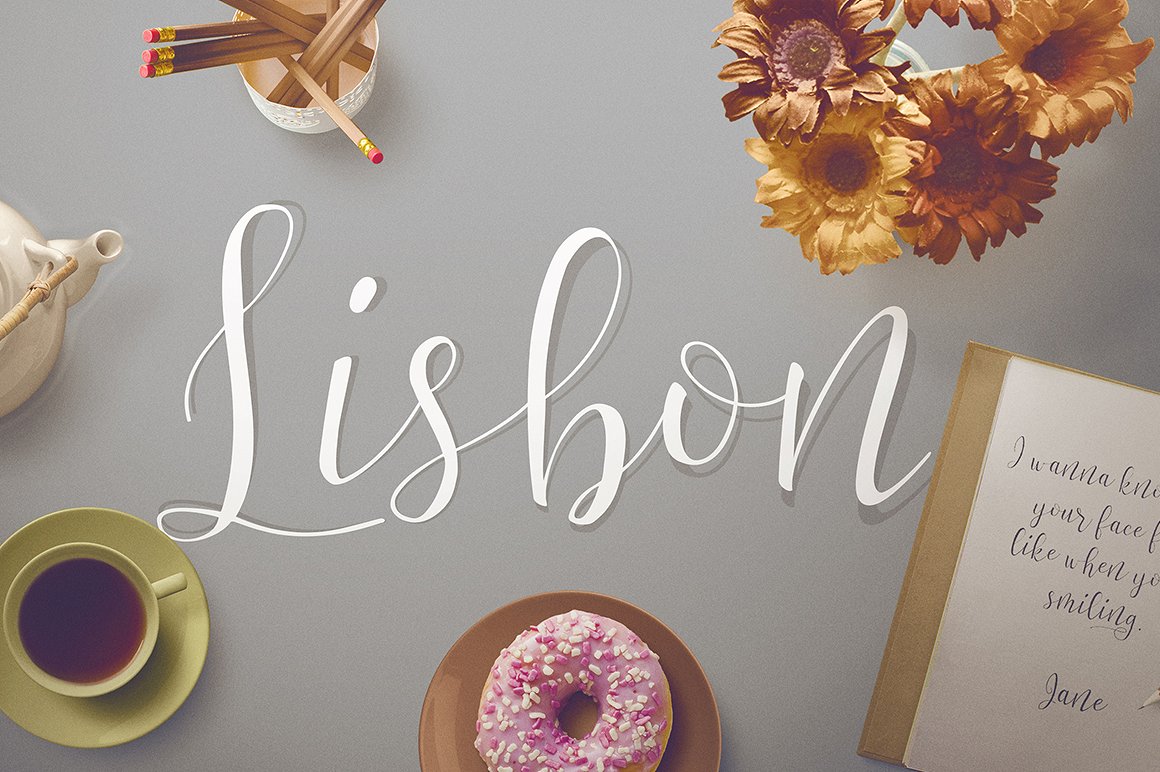
Lisbon Calligraphy Font
Lisbon Script is handwritten stylish copperplate calligraphy fonts, combines from copperplate to contemporary typeface with a dancing baseline, classic and elegant touch. Can be used for various purposes.such as headings, signature, logos, wedding invitation, t-shirt, letterhead, signage, lable, news, posters, badges etc.